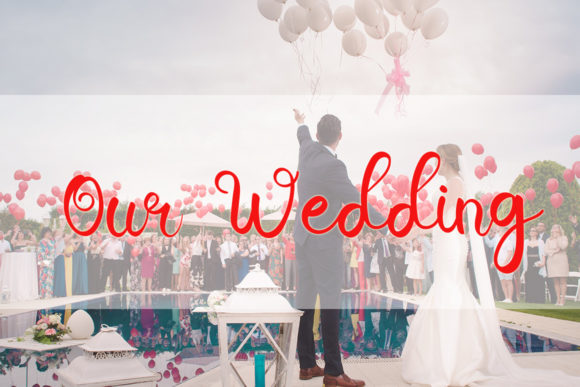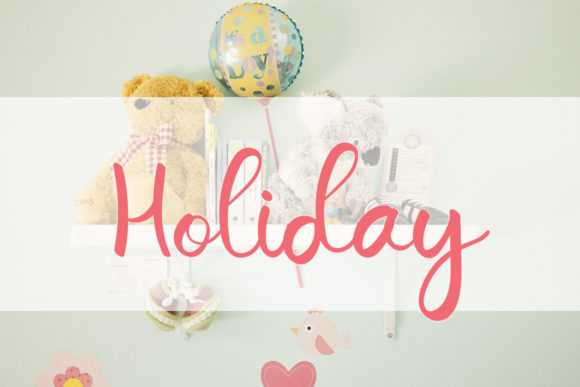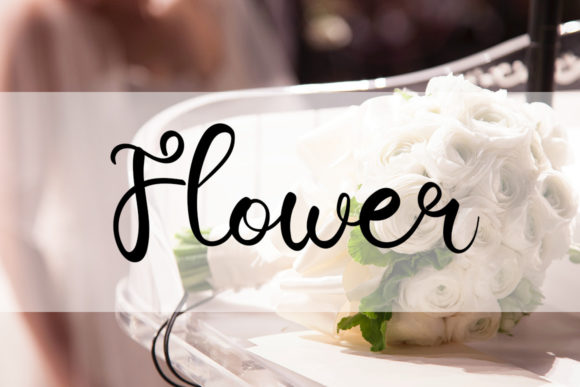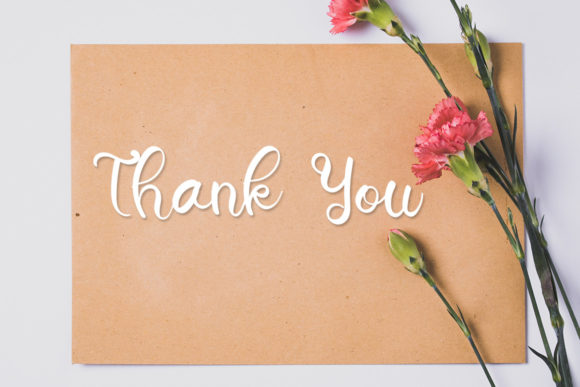
Discover the Elegance of Endloves Font: A Timeless Handwritten Style
Are you a designer or crafter looking for a unique and elegant font to elevate your projects? Look no further than Endloves Font, a beautiful handwritten font that exudes sophistication and style. With its flowing lines and distinct character, Endloves Font is perfect for creating spectacular designs that will leave a lasting impression.
What is Endloves Font?
Endloves Font is a carefully crafted handwritten font that boasts an elegant touch, making it ideal for a wide range of projects, from creative designs to commercial use. Its unique and timeless style is sure to capture the attention of your audience and set your work apart from the rest.
Key Features of Endloves Font
- Flowing Handwritten Style: Endloves Font features a beautiful, flowing handwritten style that adds a touch of elegance to any project.
- Elegant Touch: The font’s elegant touch makes it perfect for creating sophisticated designs that exude refinement and poise.
- Distinct and Timeless Style: Endloves Font has a distinct and timeless style that will not go out of fashion, ensuring your designs remain relevant for years to come.
- Perfect for a Wide Range of Projects: Whether you’re working on a creative design, commercial project, or personal craft, Endloves Font is the perfect choice.
Why Choose Endloves Font?
With so many fonts available, why choose Endloves Font? Here are just a few reasons why designers and crafters love this beautiful handwritten font:
- Unique and Memorable: Endloves Font is a unique and memorable font that will help your designs stand out from the crowd.
- Easy to Read: Despite its elegant and flowing style, Endloves Font is easy to read, making it perfect for use in a variety of contexts.
- Versatile: Endloves Font is incredibly versatile, and can be used in a wide range of projects, from digital designs to print materials.
- High-Quality: Endloves Font is a high-quality font that has been carefully crafted to ensure it meets the needs of designers and crafters.
How to Use Endloves Font
- Pair it with Other Fonts: Endloves Font pairs beautifully with other fonts, making it easy to create stunning combinations.
- Use it in Digital and Print Materials: Endloves Font is perfect for use in both digital and print materials, making it a versatile addition to your font collection.
In conclusion, Endloves Font is a beautiful and elegant handwritten font that is perfect for designers and crafters looking to add a touch of sophistication to their projects. With its flowing lines, distinct character, and timeless style, Endloves Font is sure to become a favorite in your font collection. So why wait? Fall in love with Endloves Font today and start creating spectacular designs that will leave a lasting impression!